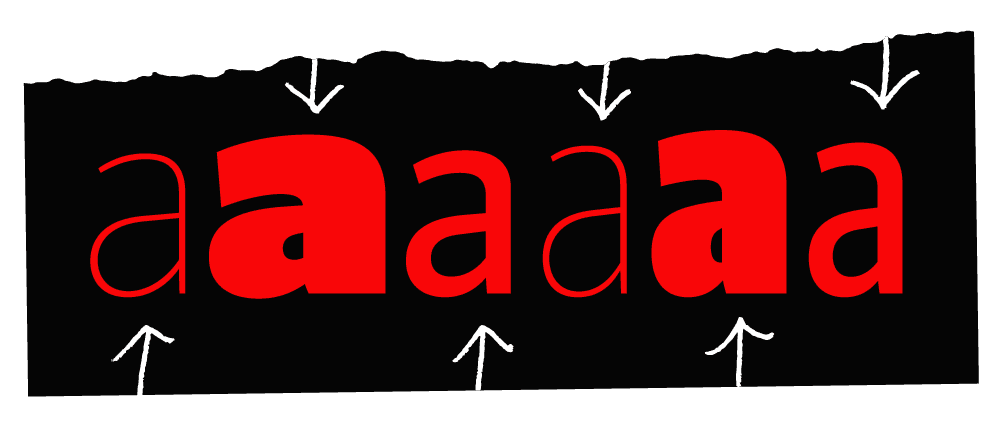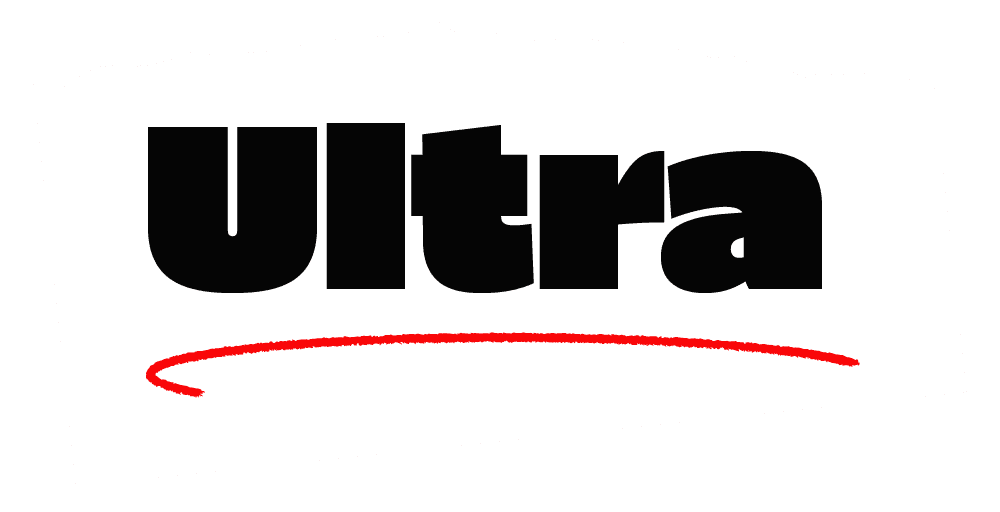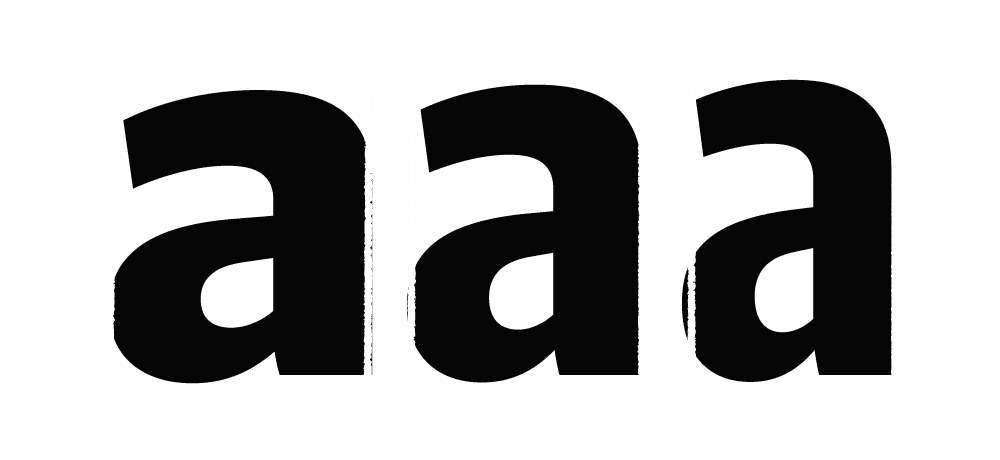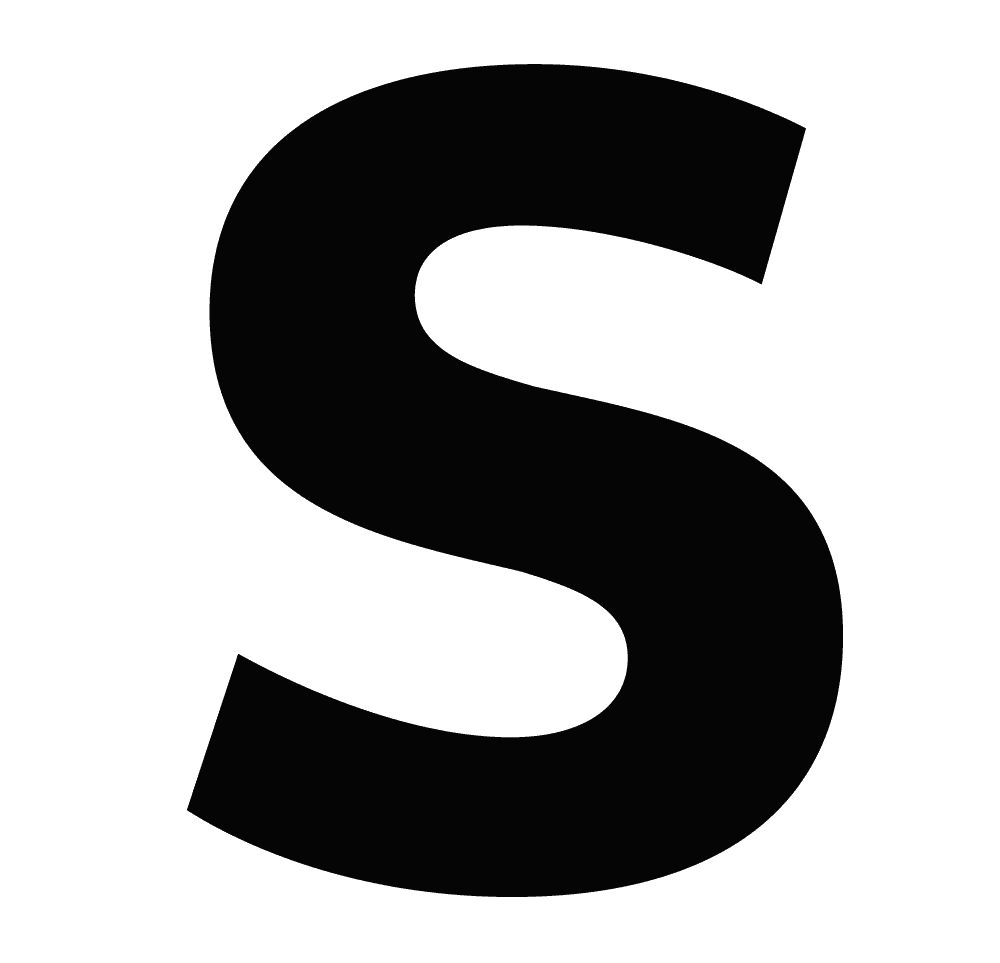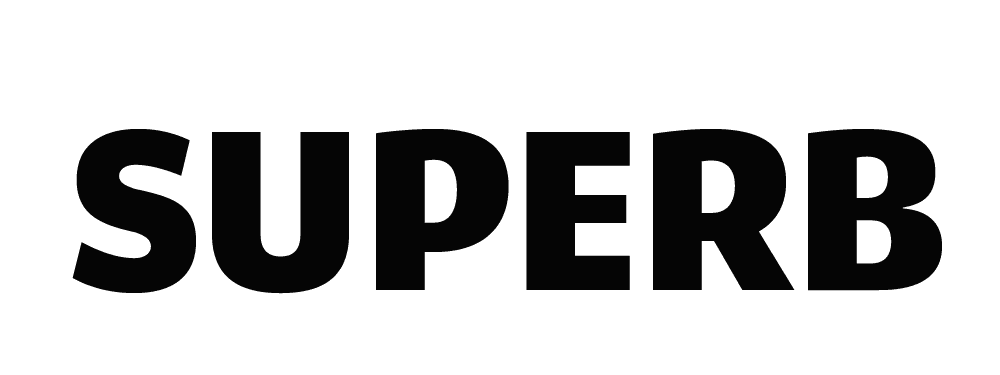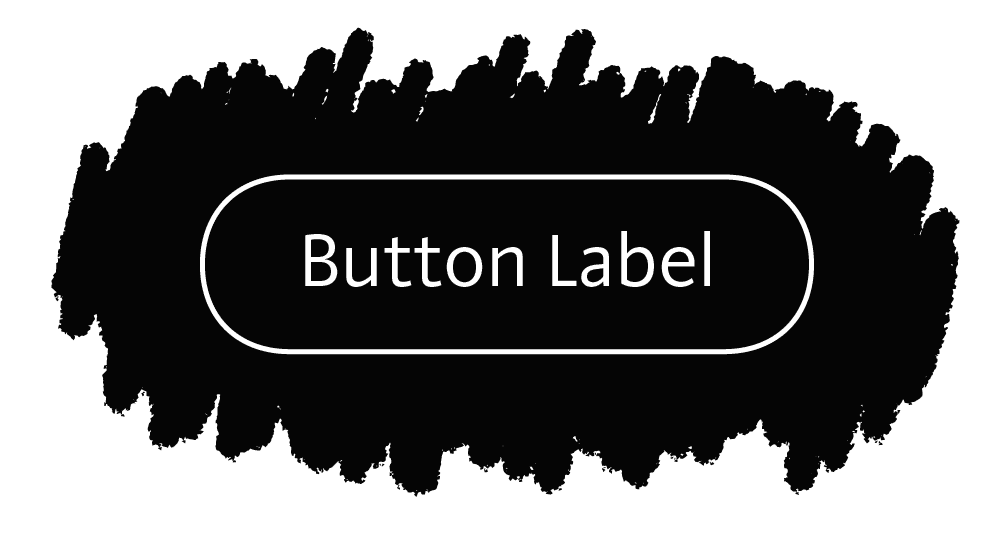
Parclo
Sans
Like the humanist fonts that paved the way, Parclo Sans is easy to read, from fine print to roadside signage. And coming fully-loaded with three widths and nine weights, Parclo Sans is always ready to hit the road.
3 Widths
9 Weights
Matching Italics
54 Total Styles
Companion Serif Typeface
Stylistic Alternates
Case Punctuation
Lining & Old Style Figures
Tabular Figures
Math & Currency
Dynamic Fractions
Circled Figures
Directional Arrows
Supports 200+ Languages
Features
Roman & Italic Styles
Oldstyle & Lining Figures
Tabular Figures & Math
Dynamic Fractions
Directional Arrows
Decorative Quotes
Circled Figures
Ultra Bold Styles
Alternate Punctuation
Case Punctuation
Buckle Up
No matter the destination, Parclo Sans can help get you where you’re going.